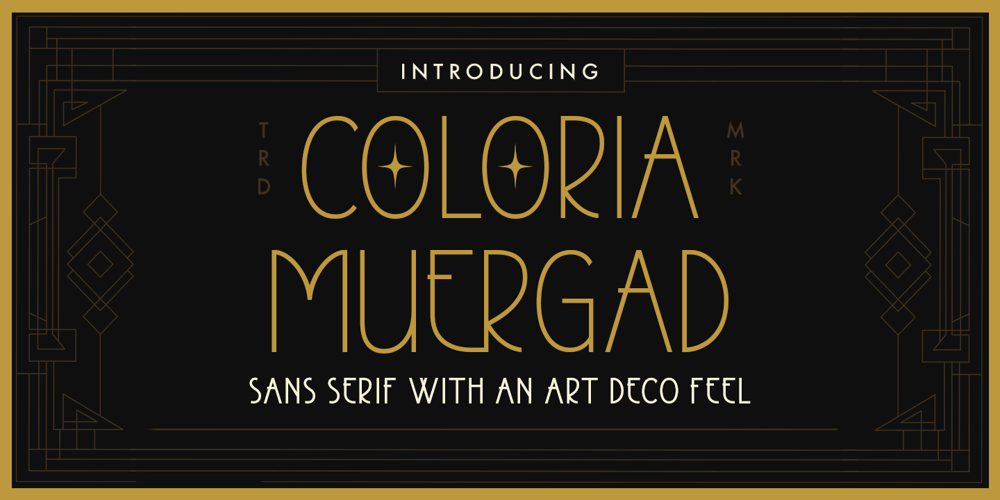
Coloria Muergad Font Family was designed by Hendry Juanda and published by Letterhend. Coloria Muergad contains 2 styles and family package options. Coloria Muergad is a typeface which is inspired by art deco style. Very suitable for for headline, logotype, apparel, invitation, branding, packaging, advertising etc with old school / vintage as well as modern theme. It comes with few bonus illustrations.Features : uppercase and lowercase numbers and punctuation multilingual alternates and ligatures PUA encoded We highly recommend using a program that supports OpenType features and Glyphs panels like many of Adobe apps and Corel Draw, so you can see and access all Glyph variations. How to access opentype feature : letterhend.com/tutorials/using-opentype-feature-in-any-software/